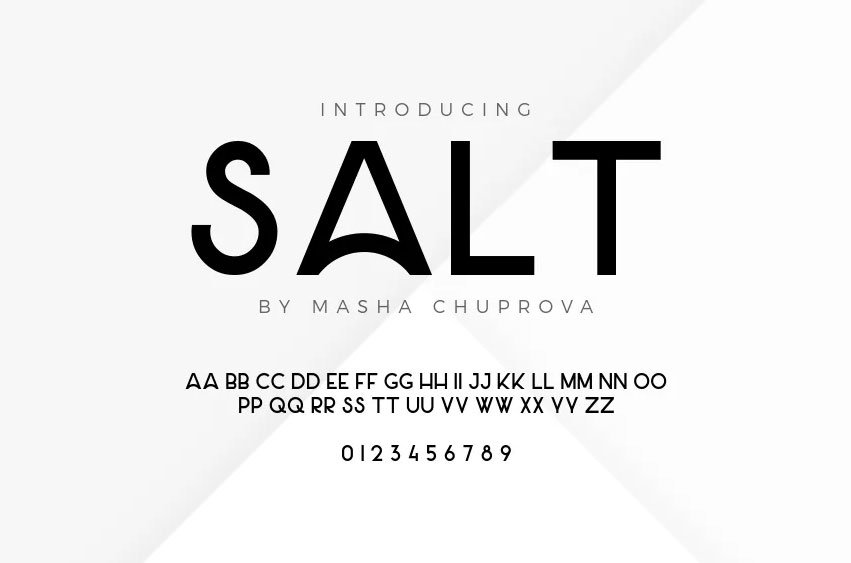
Salt Font
Salt Font designed by Masha Chuprova, is a sleek and modern sans serif typeface family that boasts a low center of gravity. This font family features both Regular and Bold weights, as well as uppercase letters, numbers, and symbols.
With its minimalist design, Salt Font is perfect for creating clean and sophisticated designs. Whether you’re designing a website, a logo, or any other project that requires a stylish and professional look, Salt Font is the perfect choice.